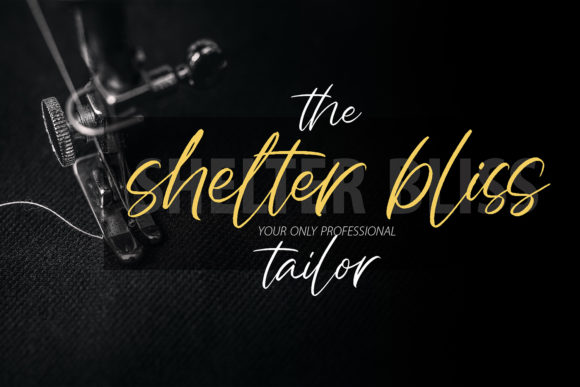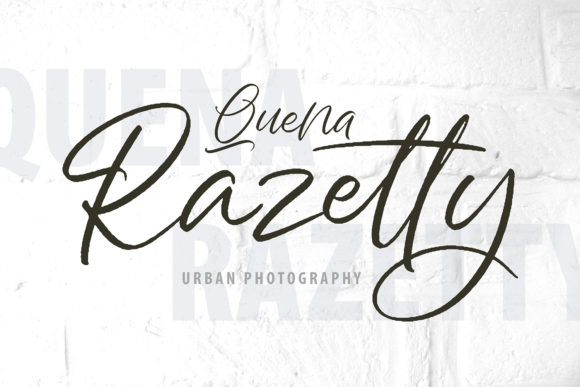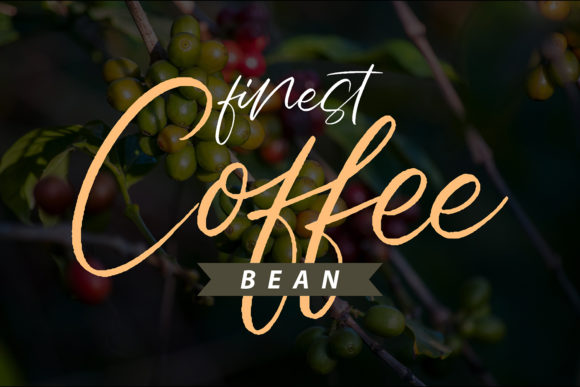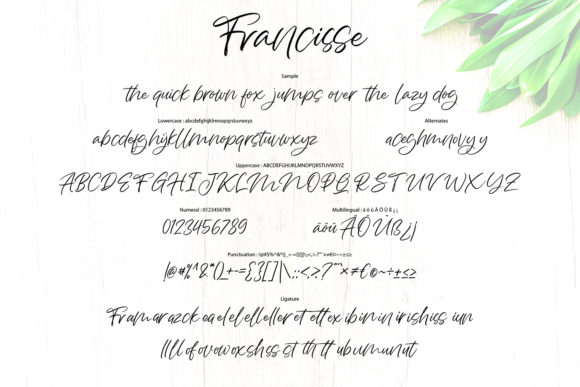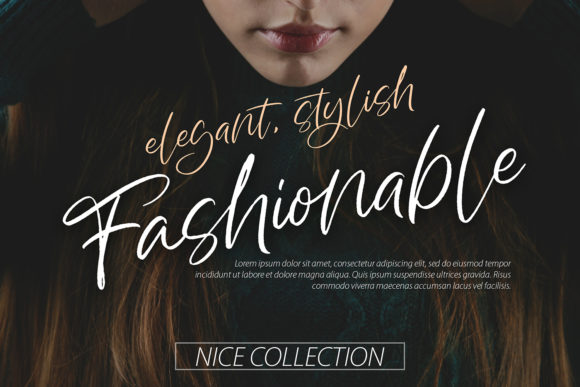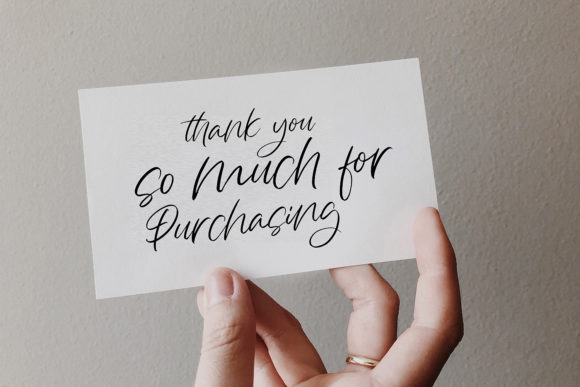
Introduction to Francisse Font
Have you ever stumbled upon a beautifully handwritten invitation at a wedding, and instantly felt a sense of excitement and joy? For designers, this feeling is what drives us to create unique and captivating designs that leave a lasting impression. When it comes to adding a personal touch to our creative projects, we often find ourselves searching for the perfect font that exudes elegance and sophistication.
That’s where the Francisse Font comes in – a stylish and incredibly elegant script font that is sure to elevate any design to the next level. With its PUA encoded features, accessing all of the glyphs and swashes is a breeze, making it the perfect design resource for any creative project.
Key Features of Francisse Font
- High-quality font with a unique, modern design, perfect for creative projects
- Transparency option allows for a seamless integration with any background
- Designed with a high resolution, suitable for printing and digital use
- Perfect for designers looking for a design resource with a personal touch
- Comes with a transparent background, ideal for use on images, videos, or websites
Honest Review: Francisse Font
As a designer, I’m always on the lookout for high-quality design resources that can elevate my creative projects. Recently, I stumbled upon the Francisse Font, and I must say it’s a great addition to my design arsenal.
- Wide range of languages supported
However, there are a few limitations: ⚠️ The font doesn’t come with a lot of variations or styles, which might limit its versatility. Additionally, the font files can be a bit large, which might be a concern for designers working with limited storage space.
Overall, I’m impressed with the Francisse Font. It’s a great resource for designers who need a high-quality, elegant script font for their creative projects. While it may have some limitations, it’s definitely worth checking out.
Getting the Most Out of Francisse Font
To get the most out of the Francisse Font, experiment with different font sizes, colors, and combinations. You can also use it in conjunction with other design elements to create a cohesive look. Remember to save your design files with the font embedded to ensure that your design remains intact.
The Francisse Font is ideal for creative projects, including branding, marketing materials, and digital products. Its unique design and high-quality features make it a popular choice among designers and artists.
What makes the Francisse Font a high-quality design resource?
The Francisse Font is a high-quality design resource due to its clean and elegant design, making it perfect for a variety of creative projects. The font is carefully crafted to ensure high legibility and readability, even at small font sizes. With its high-quality design, the Francisse Font is an excellent addition to any design resource library.